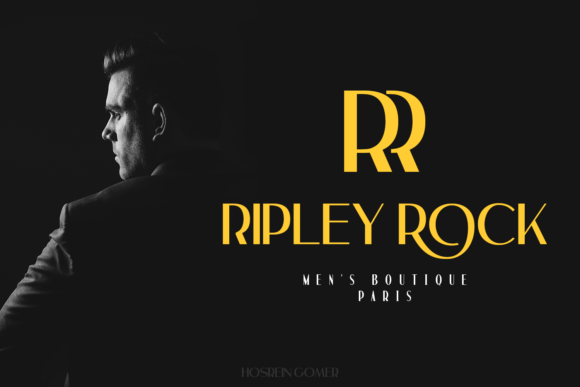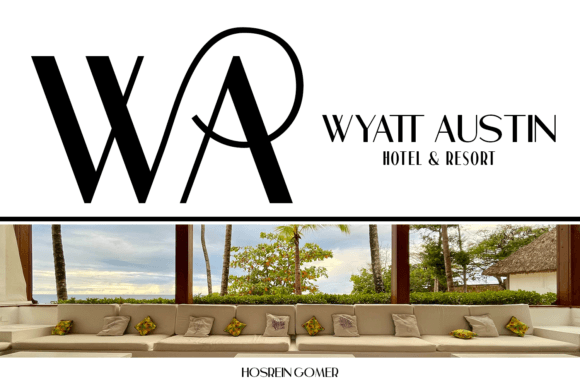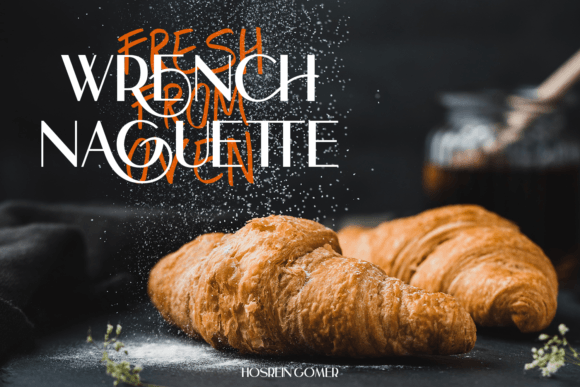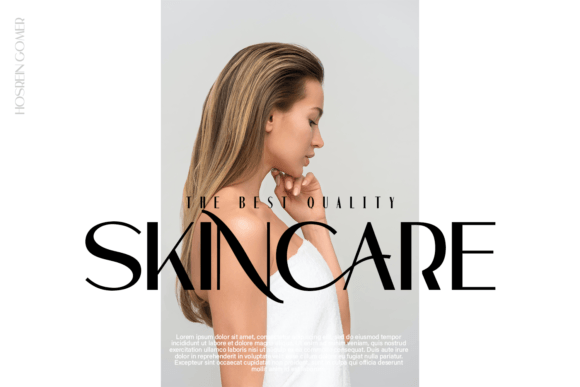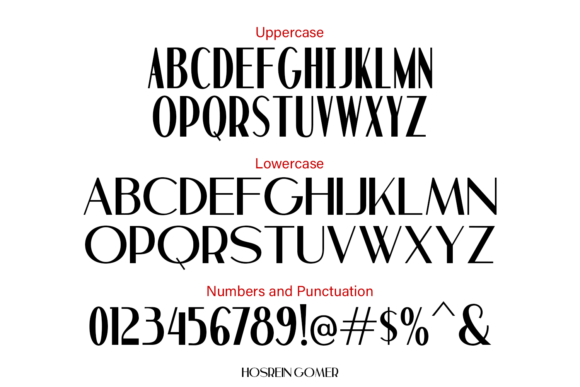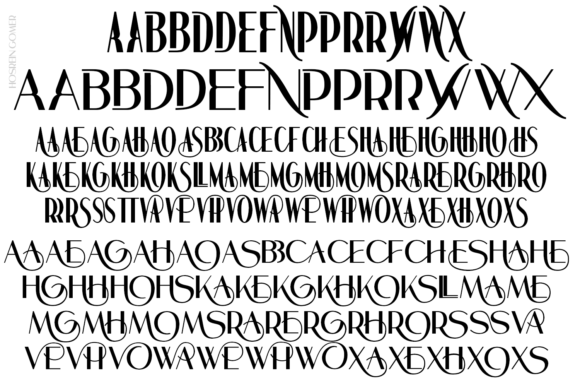
Introduction to Hosrein Gomer Font
Do you remember that moment when you stumbled upon the perfect font, and your creative project suddenly felt complete? For designers, this moment is a treasure trove of inspiration and a chance to elevate their work to the next level. Today, we’re excited to introduce you to the Hosrein Gomer Font, a modern ligature font designed to take your branding, product packaging, and creative endeavors to new heights.
The Hosrein Gomer Font is more than just a design resource – it’s a high-quality addition to any designer’s toolkit. With its sleek and sophisticated aesthetic, this font is perfect for fashion labels, product posters, and even logos. What’s more, you can download the Hosrein Gomer Font for free, complete with a transparent background, making it easy to integrate into your design projects.
Key Features of Hosrein Gomer Font
• High-quality, professional font design suitable for various creative projects.
• Comes with a transparent background, allowing for easy customization and integration with different designs.
• Unique characteristics include a modern and sleek design, making it perfect for logos, branding, and digital products.
Honest Review: Hosrein Gomer Font
I recently stumbled upon the Hosrein Gomer Font while searching for a high-quality font for a creative project. As a designer, I was excited to give it a try and see how it would perform. After downloading the font for free, I was impressed with the level of detail and design that went into creating it.
What works well: ✨ The font has a unique, modern design that makes it perfect for a variety of creative projects. The transparent background allows for seamless integration with any design, and the font is available for free download, making it an excellent design resource for designers on a budget.
• Unique and modern design
• Transparent background
However, I did encounter some limitations: ⚠️ The font is not ideal for projects that require a large character set, as it only includes a limited number of characters. Additionally, the font may not be suitable for use in certain design software, as it may not render correctly.
Overall, I was impressed with the Hosrein Gomer Font and would recommend it for designers who are looking for a high-quality, unique font for their creative projects. While it may have some limitations, it is an excellent design resource that is definitely worth checking out.
The Hosrein Gomer Font is ideal for use in a variety of creative projects, including logos, branding materials, and social media graphics. Its high-quality design and transparent background make it a versatile design resource that can be used in a range of applications.